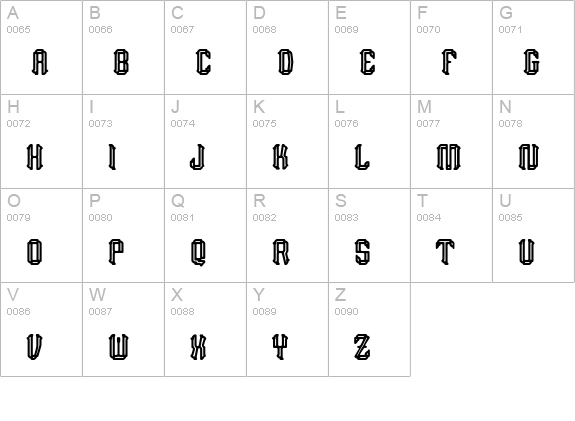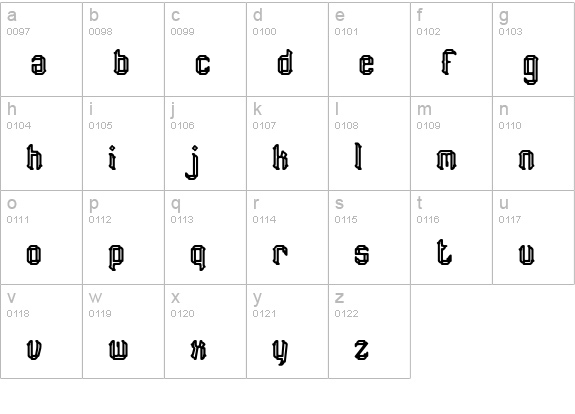
Slag-Regular Font Details
Slag-Regular is the standard, neutral variant in the Slag typeface family \xE2\x80\x94 well suited to general body text, paragraphs, and standard typographic work.
Slag-Regular font is a stunning display typeface that combines modern aesthetics with a touch of vintage charm. With its bold and distinctive letterforms, Slag-Regular is perfect for making a statement in headlines, logos, and various design projects. This versatile font features clean lines and sharp edges, giving it a strong and commanding presence on the page. Its unique and stylish letter shapes add a sense of creativity and sophistication to any design. Slag-Regular font is freely available to download at FontsMarket.com. Whether you are a professional designer or a creative enthusiast, this font is a valuable addition to your typographic toolkit. Its extensive character set includes uppercase letters, lowercase letters, numerals, punctuation marks, and special symbols, allowing you to fully express your creativity. Designed with readability in mind, Slag-Regular font ensures that your message is clear and legible, even at small sizes. The well-balanced letter spacing and generous x-height contribute to its excellent legibility, making it suitable for both print and digital applications. Furthermore, Slag-Regular font is highly versatile and can be used in a wide range of design projects, including branding, packaging, posters, websites, and more. Its timeless appeal and contemporary flair make it a perfect choice for both modern and vintage-inspired designs. What sets Slag-Regular font apart is its availability as a free download at FontsMarket.com. This means that you can effortlessly access this exceptional font without any cost. Simply visit FontsMarket.com, search for Slag-Regular font, and start incorporating its elegance and style into your projects. Don't miss out on the opportunity to enhance your designs with Slag-Regular font. Download it for free today and let your creativity soar.